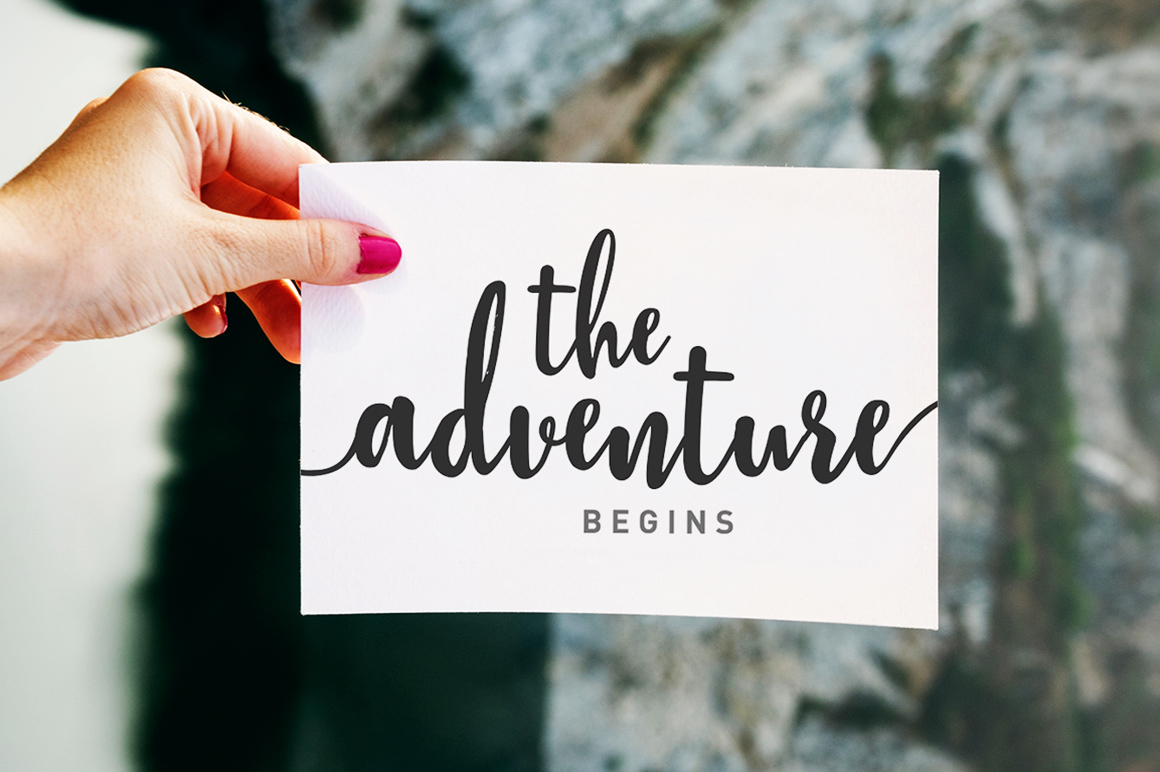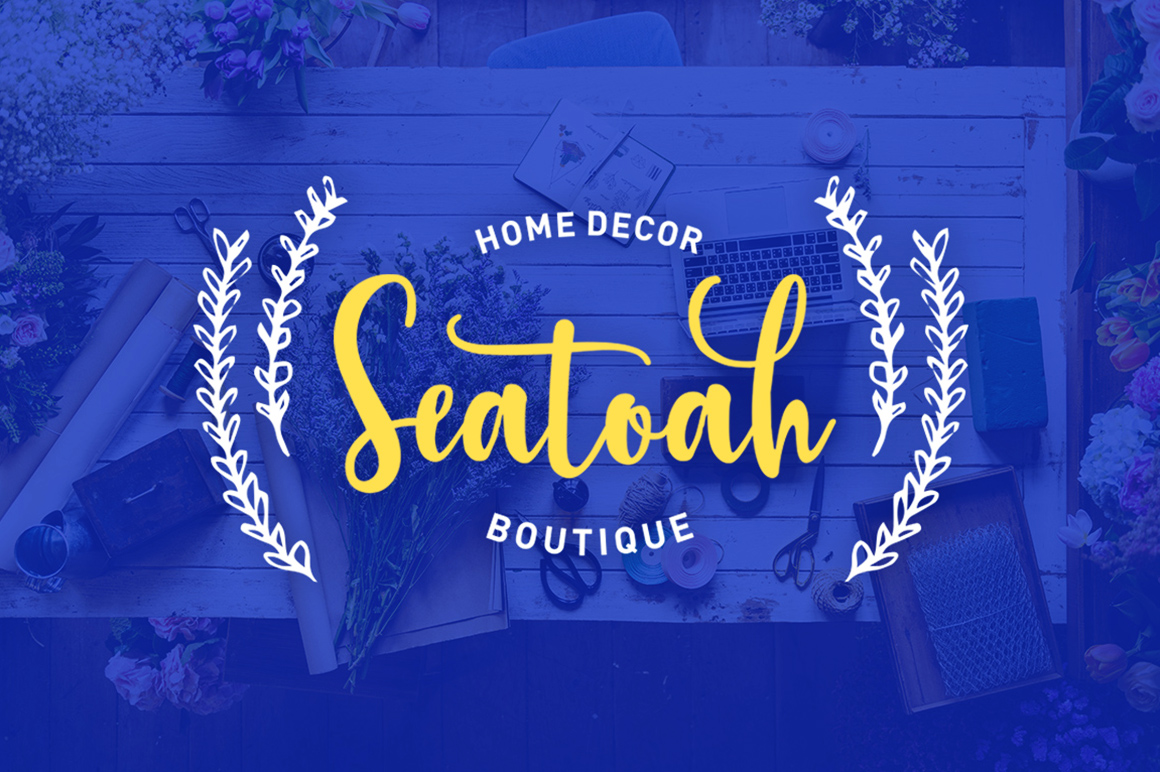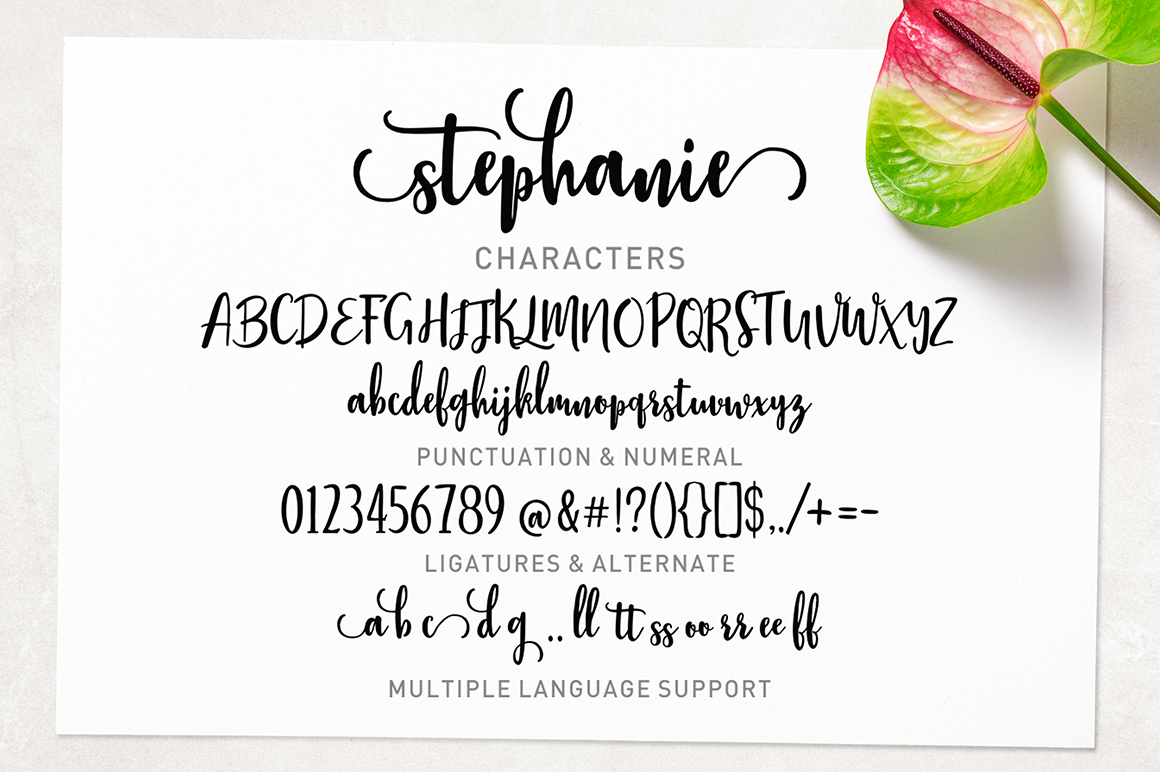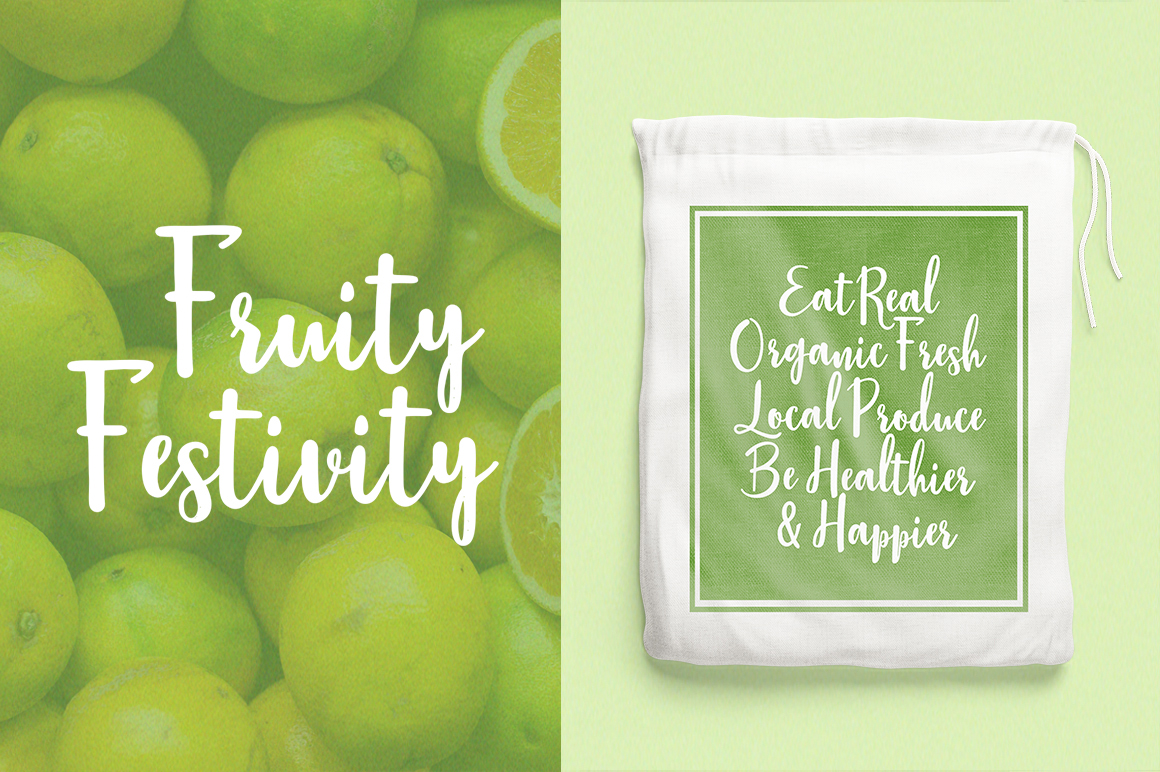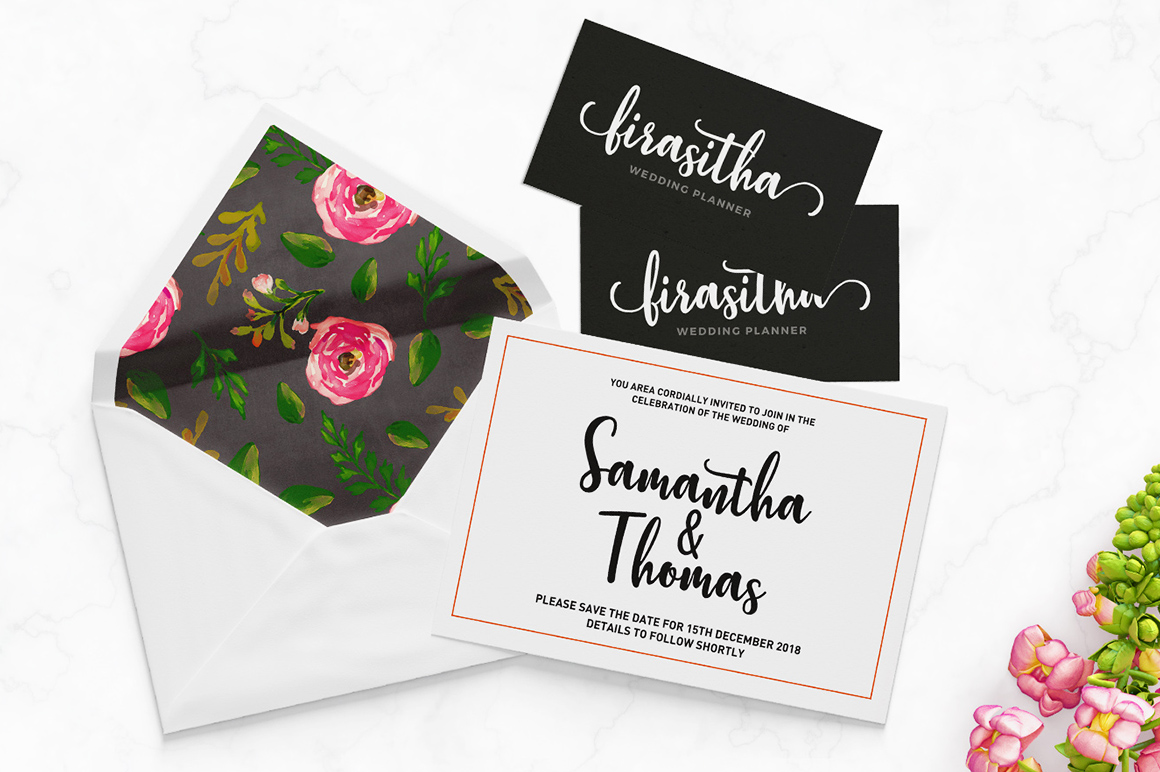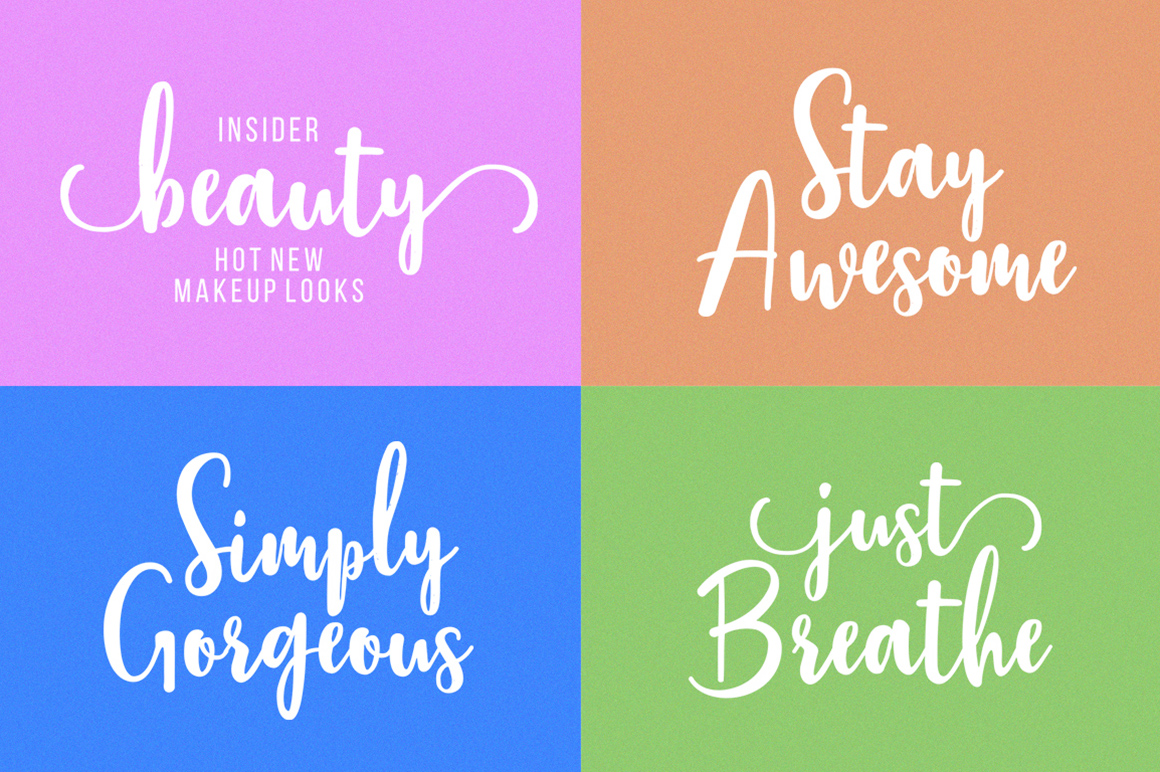
About Stephanie Script Font
Stephanie Script is a new modern script font with an irregular baseline. It has a trendy and feminine style. Stephanie looks lovely on wedding invitations, thank you cards, quotes, greeting cards, logos, business cards and more.
Including initial and terminal letters, alternates, ligatures and multiple language support.